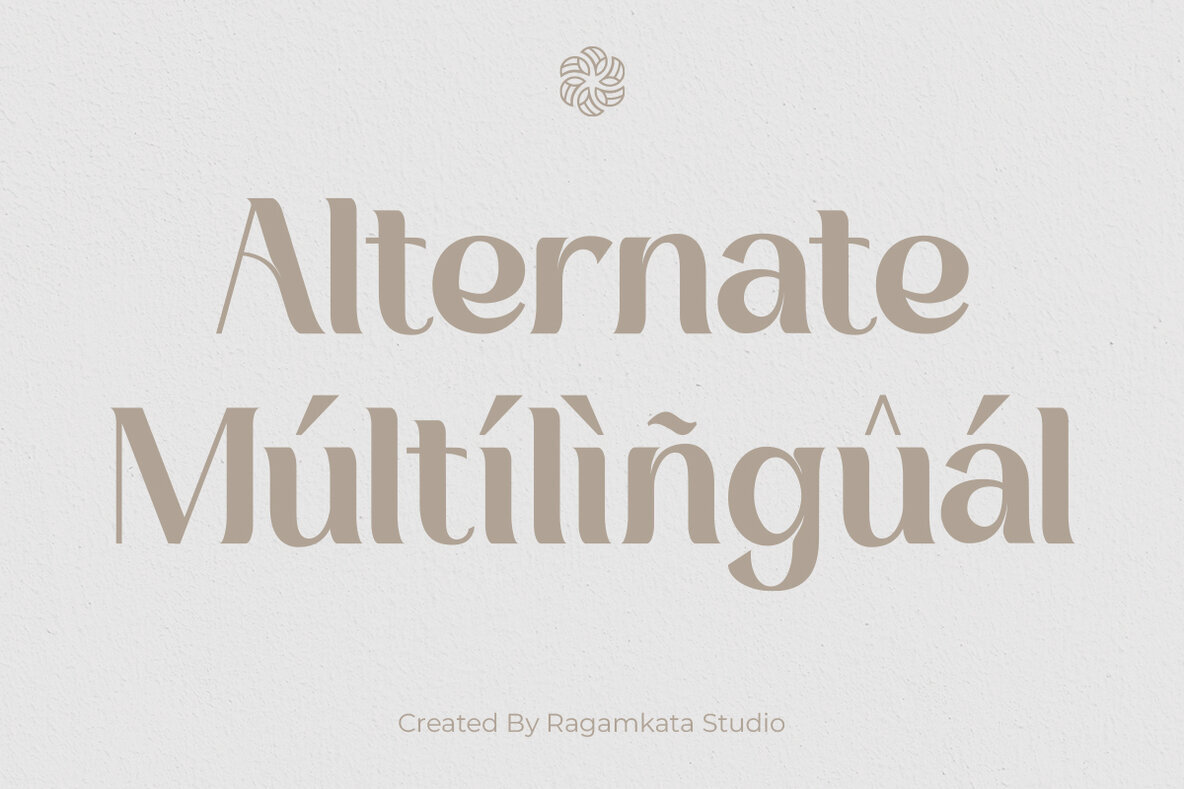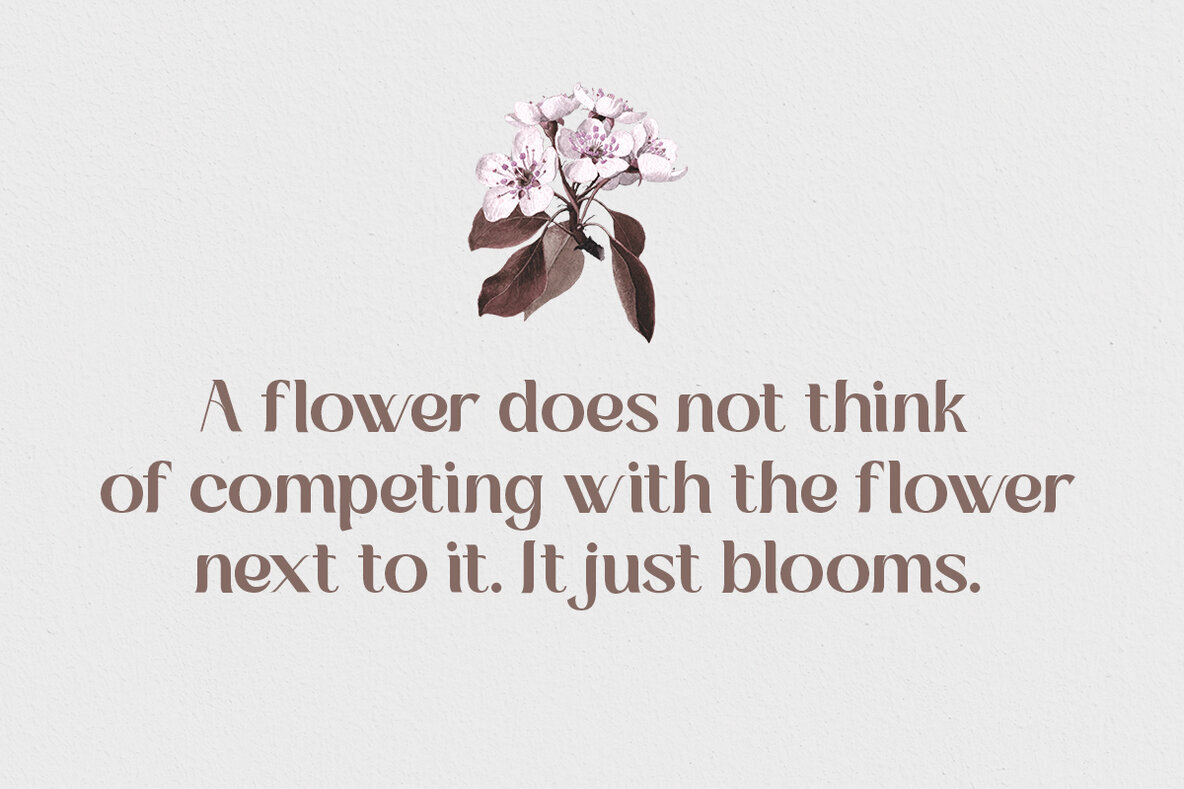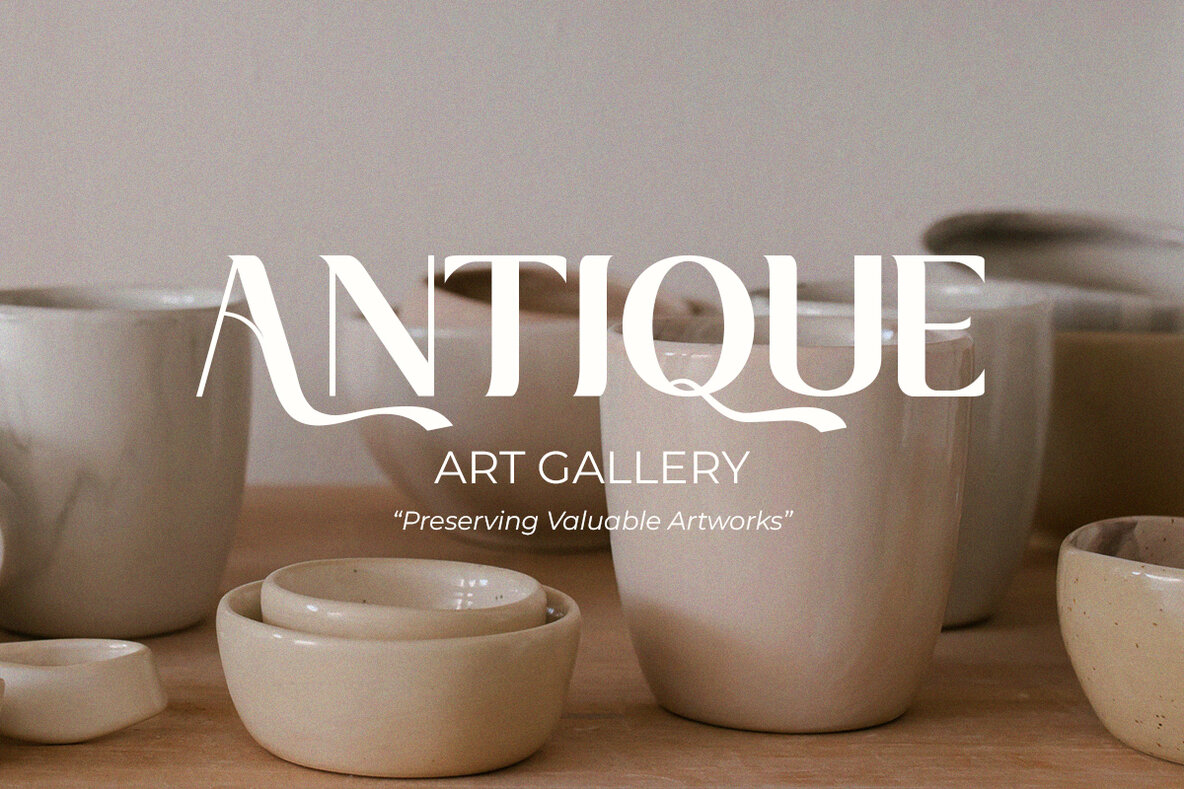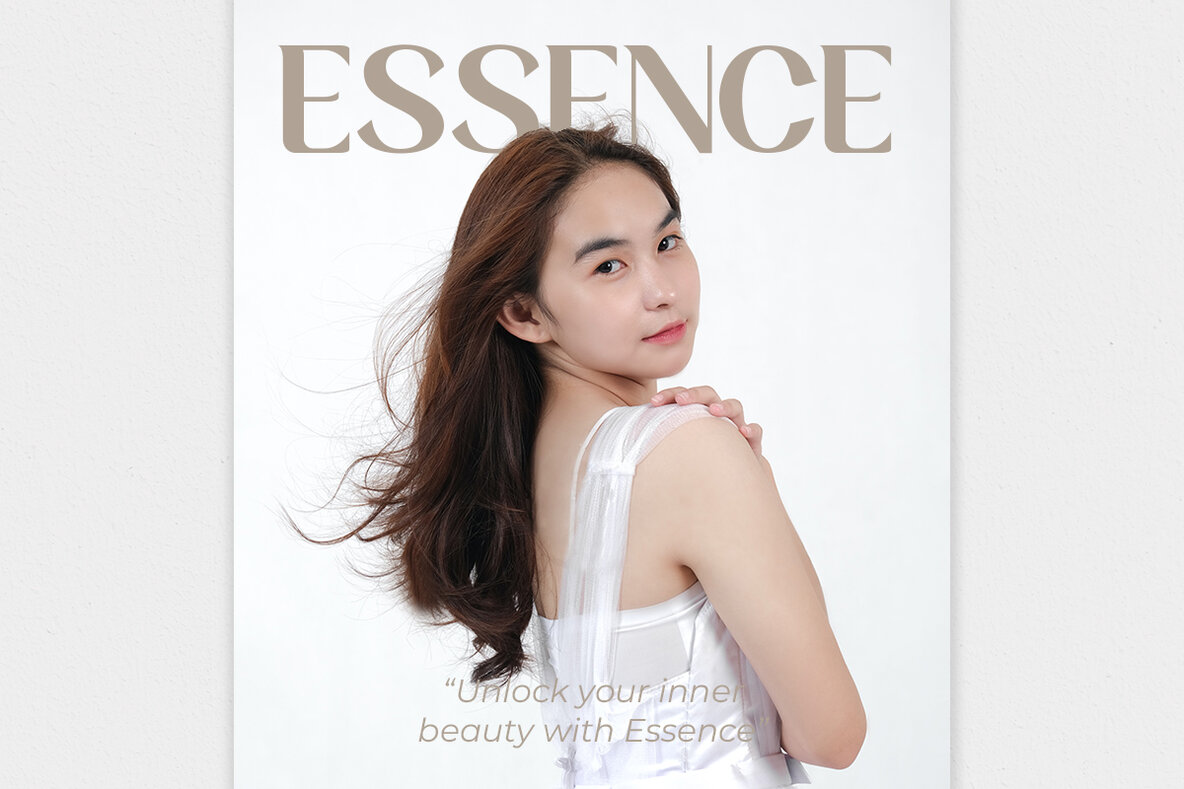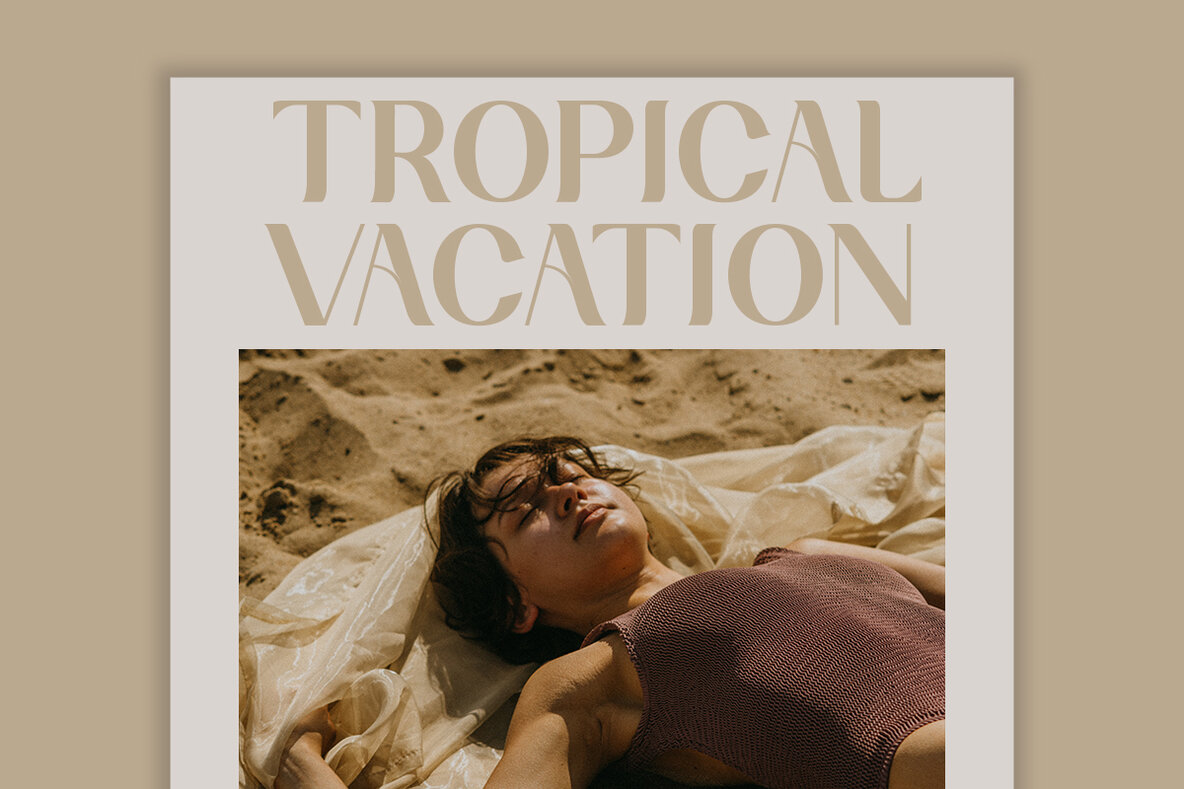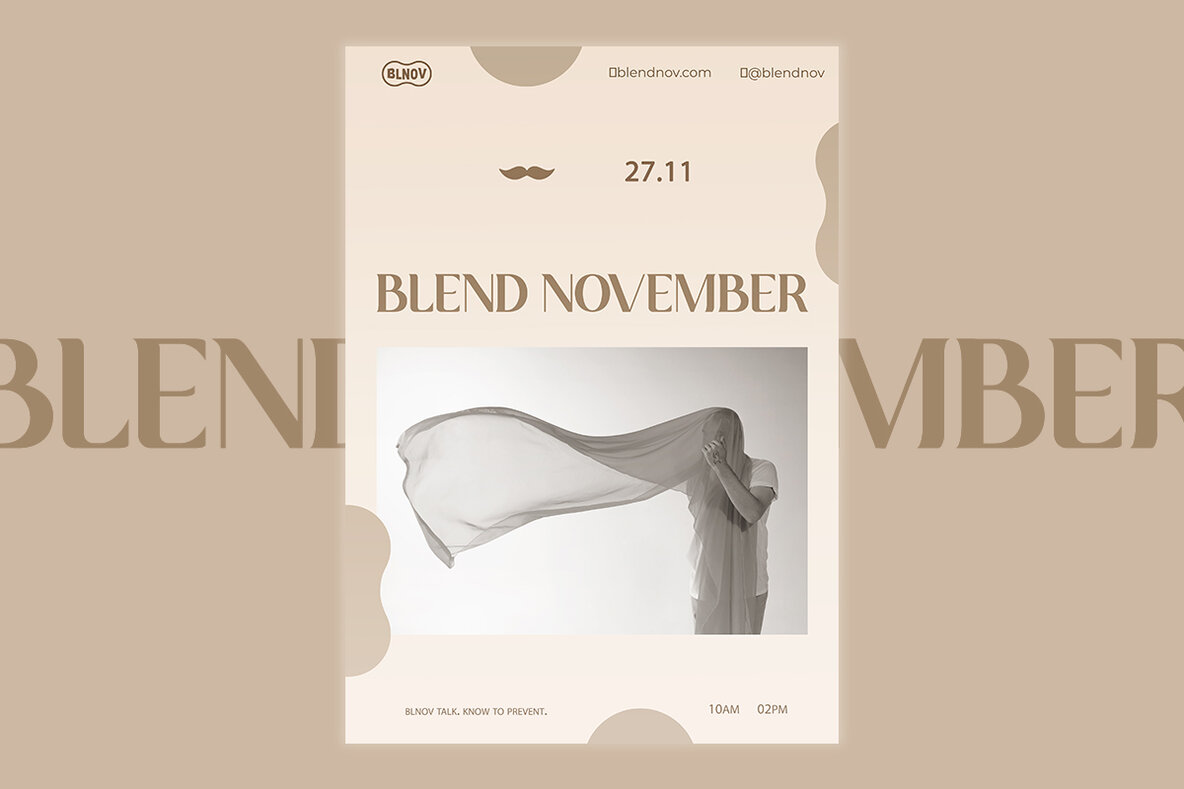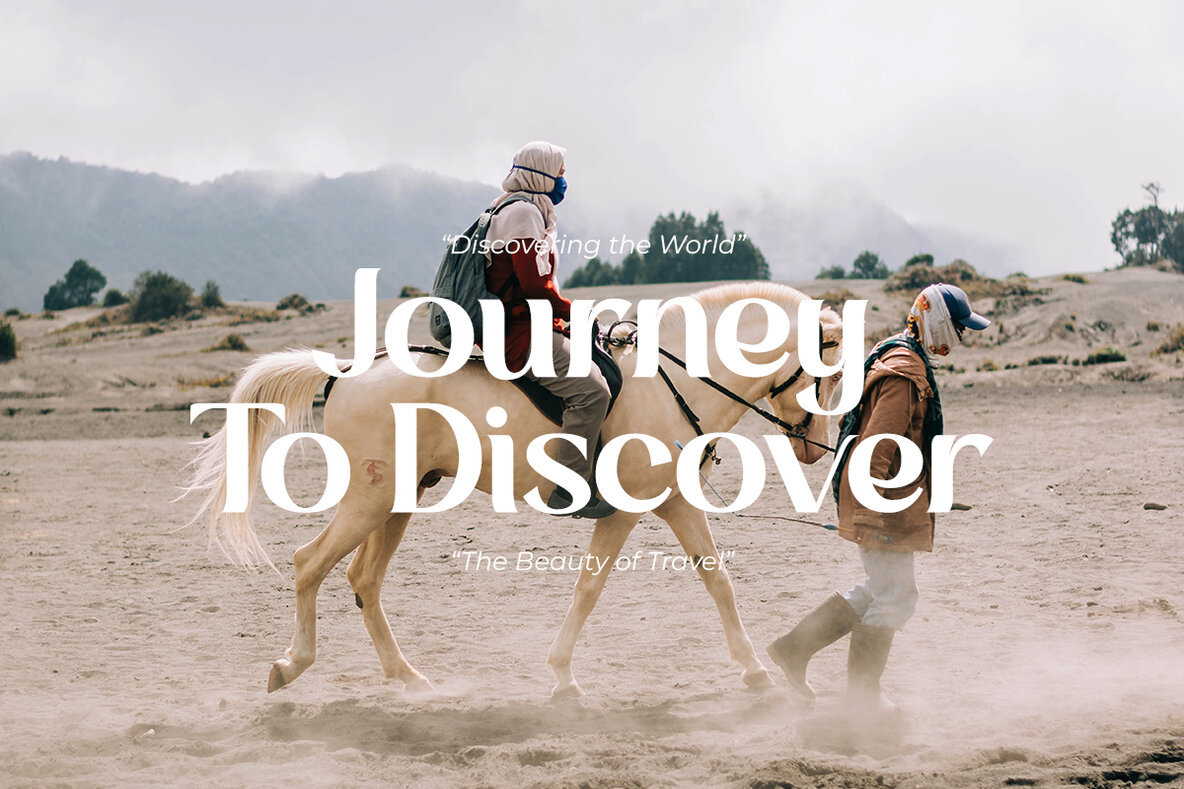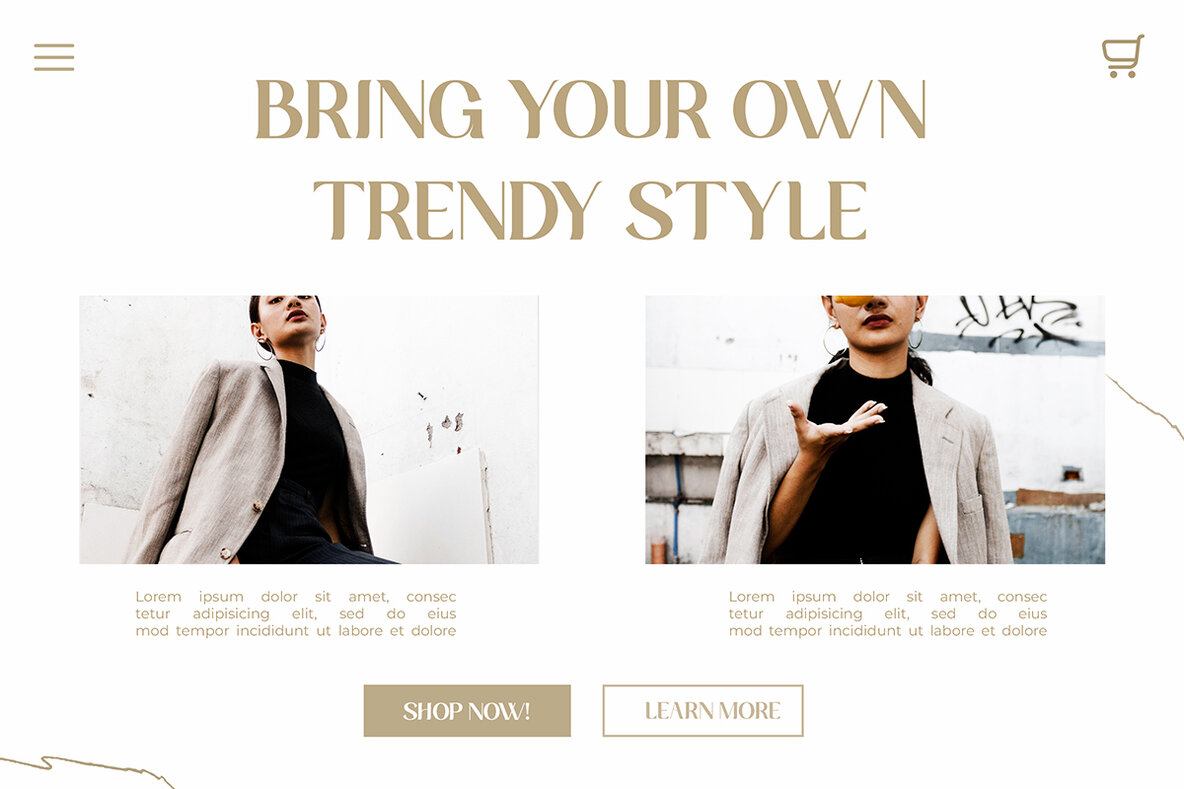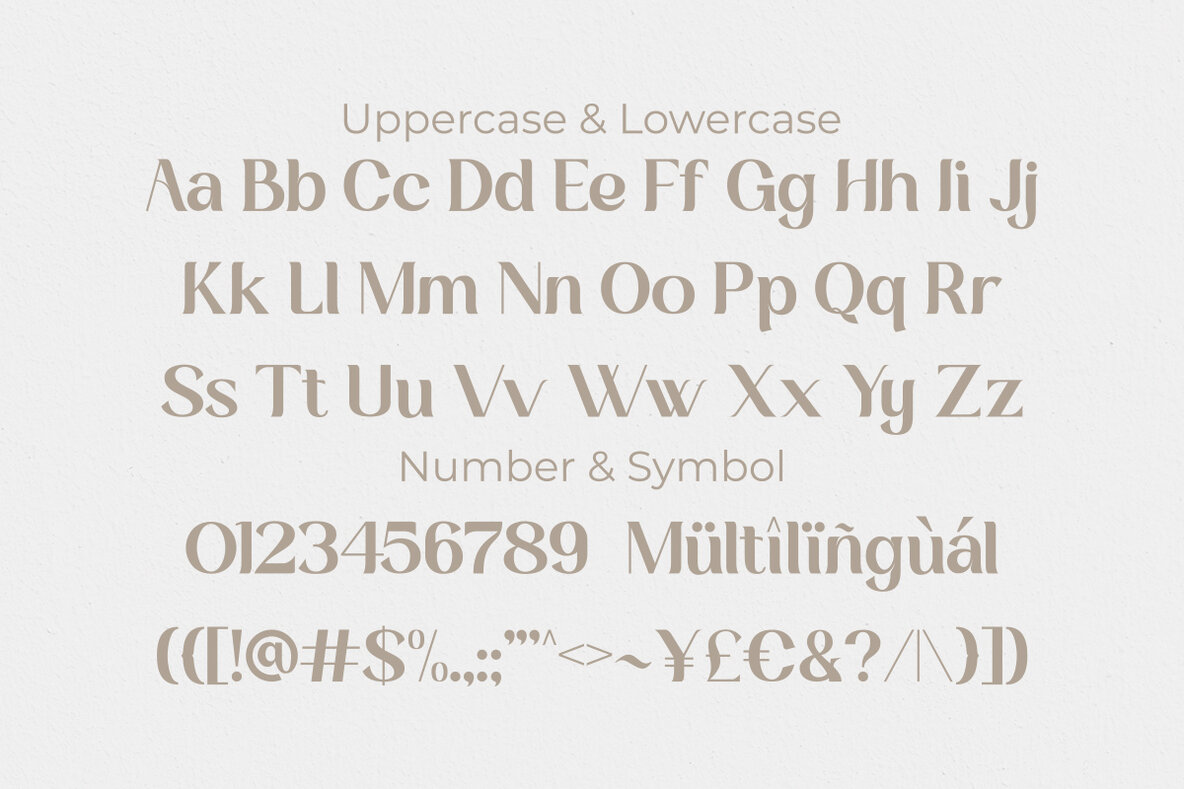
Grader Font
Grader Regular
Grader is a modern display font ideal for creating eye-catching headlines and elegant editorial designs. Perfect for magazines, fashion and cosmetic brands, promotional materials, modern advertising, invitation cards, art quotes, home decor, book and cover titles, special events, and more. If you experience any issues or notice anything we may have overlooked, please feel free to contact us. We appreciate your feedback to help us enhance our products. Thank you, and have a wonderful day.Grader: A Modern Display Font for Contemporary Design
Grader Features